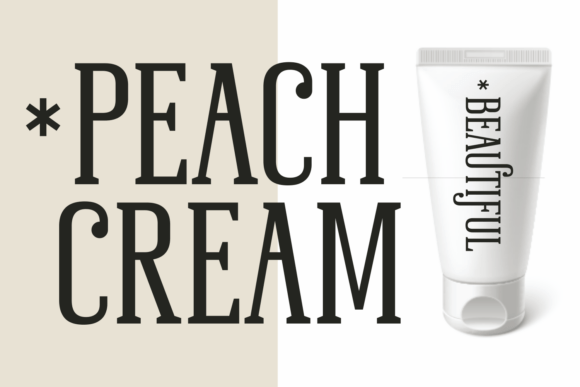
Meravelle Font: Elevate Your Design with Elegance and Sophistication
In the world of typography, fonts play a crucial role in conveying the tone and personality of a brand or design. With the ever-evolving landscape of graphic design, it’s essential to stay ahead of the curve with fresh and exciting fonts. One such font that has caught the attention of designers and typography enthusiasts is Meravelle, a modern serif font created by Creative Fabrica. In this article, we’ll dive into the world of Meravelle Font, exploring its unique features, and what makes it a standout in the world of typography.
A promotional image for “Meravelle,” a modern serif font by Creative Fabrica from the year 2025.
The Birth of Meravelle Font
Meravelle Font is a creation of Creative Fabrica, a well-known platform for creative assets and fonts. Designed to make a statement in the world of typography, Meravelle Font boasts a unique blend of elegance and sophistication. Its modern serif design makes it perfect for high-end branding, fashion, and luxury goods. The font’s design is characterized by its clean lines, refined details, and stylish alternate letterforms, which set it apart from other serif fonts.
Key Features of Meravelle Font
So, what makes Meravelle Font so special? Here are some of its key features:
- Modern Serif Design: Meravelle Font features a modern serif design that exudes elegance and sophistication.
- Stylish Alternate Letterforms: The font includes stylish alternate letterforms, which add a touch of uniqueness to your designs.
- High-Fashion Context: Meravelle Font is perfect for high-fashion contexts, making it ideal for branding, packaging, and advertising.
- Elegant and Refined: The font’s design is characterized by its clean lines, refined details, and elegant feel.
What Makes Meravelle Font Stand Out?
In a crowded world of typography, Meravelle Font stands out for several reasons:
Unique Character
Meravelle Font has a unique character that sets it apart from other serif fonts. Its stylish alternate letterforms and refined details make it a standout.
High-End Aesthetic
The font’s design is perfect for high-end branding, fashion, and luxury goods. Its elegant and refined feel makes it ideal for designs that require a touch of sophistication.
Versatility
Meravelle Font is versatile and can be used in a variety of design contexts, from print to digital.
How to Use Meravelle Font in Your Designs
So, how can you use Meravelle Font in your designs? Here are some tips:
- Pair it with Other Fonts: Meravelle Font can be paired with other fonts to create a unique and visually appealing design.
- Use it for Headings and Titles: The font’s elegant and refined feel makes it perfect for headings and titles.
- Experiment with Different Sizes and Colors: Don’t be afraid to experiment with different sizes and colors to find the perfect combination for your design.
In conclusion, Meravelle Font is a modern serif font that is sure to elevate your designs with its elegance and sophistication. Its unique character, high-end aesthetic, and versatility make it a standout in the world of typography. Whether you’re a designer, typography enthusiast, or simply looking for a fresh font to add to your collection, Meravelle Font is definitely worth checking out.
What is Meravelle Font?
Meravelle Font is a modern serif font created by Creative Fabrica.
What makes Meravelle Font unique?
Meravelle Font is unique due to its stylish alternate letterforms, refined details, and elegant feel.